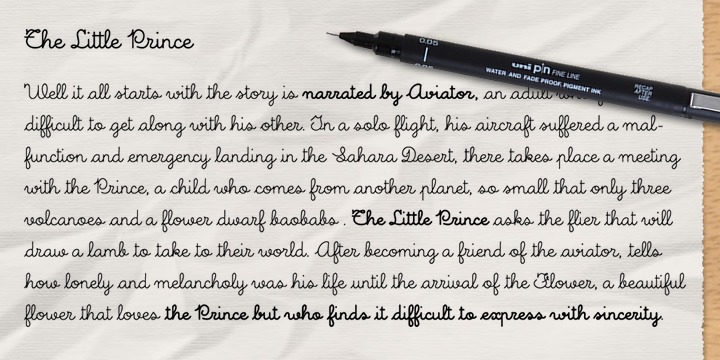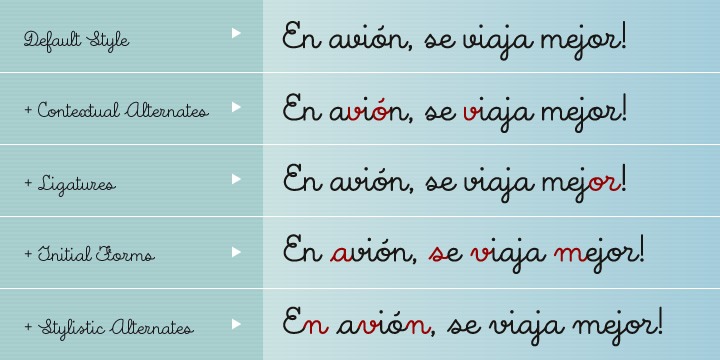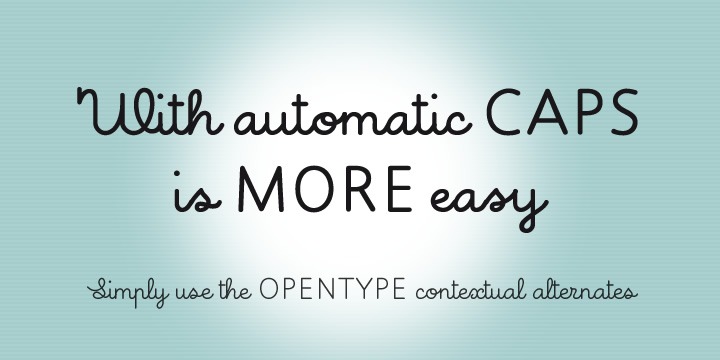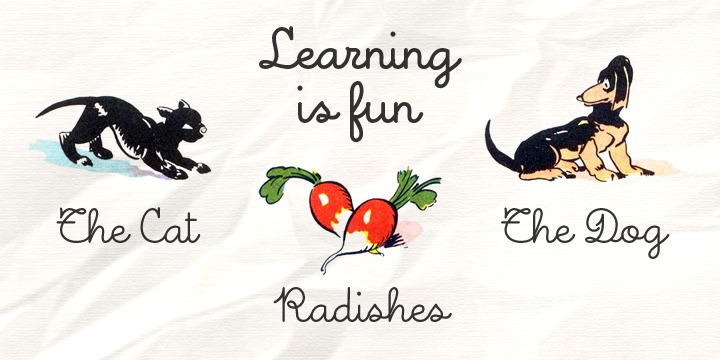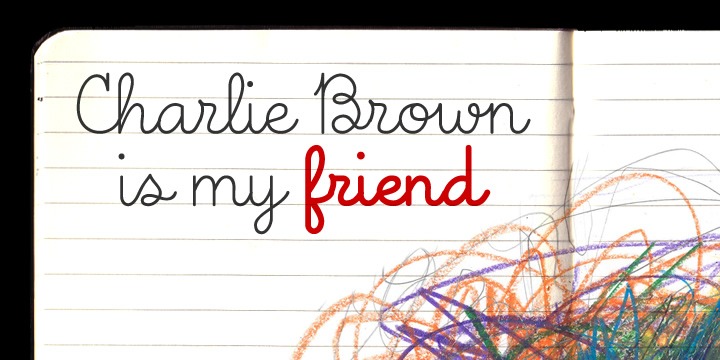
Kids Script
Font Family by Tipo Pèpel
Taking advantage of Opentype functions, it's possible to get different styles of writing, adding initials, ligatures, contextual characters and alternatives, plus a complete set of uppercase letters.
The font contains three different weights for solving the most common issues, working with perfect legibility and readability in all sizes.